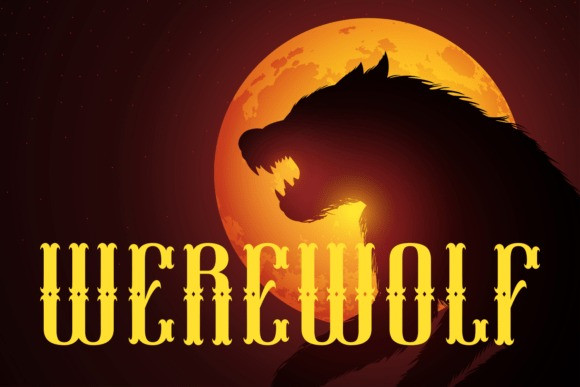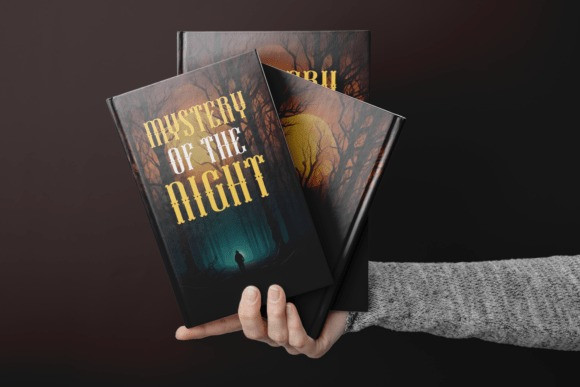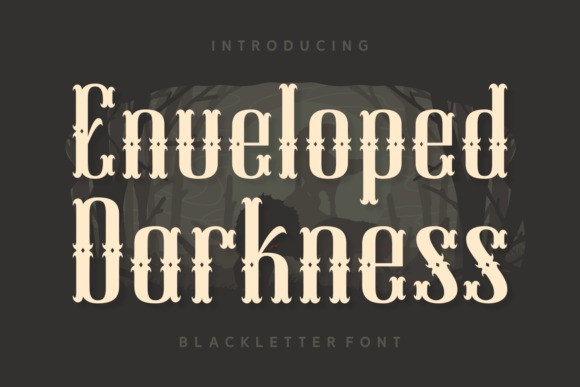
Enveloped Darkness Font
Enveloped Darkness Font a vintage blackletter font full of intriguing mystery. Its refined craftsmanship pays homage to classic typography while offering a unique twist. This versatile font is ideal for website design, igniting the pages of magazines, enhancing brand identities with a sense of nostalgia, or adding a touch of the dramatic to apparel designs and product packaging. Its artful and clean lines make it a smart choice for greeting cards and invitations, labels, posters, as well as logos. Imagine the depth it could bring to a book cover, making the title leap off the shelf. It’s the ideal choice for your quote graphics and casts an inimitable vibe to your T-shirt designs. “Enveloped Darkness” is a trendsetter in the font world, a perfect blend of classic nuances and modern style.